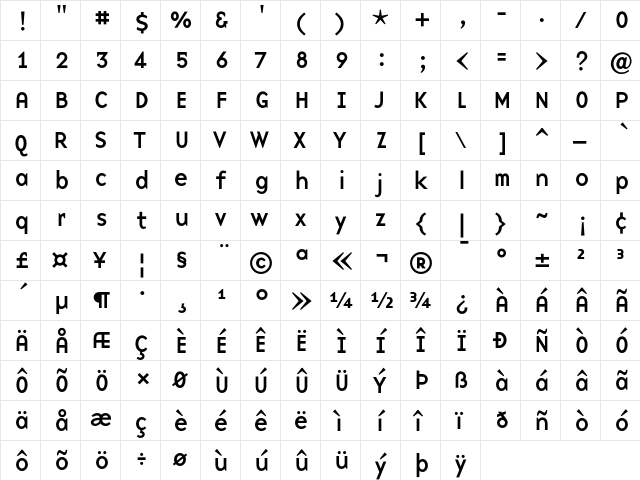
BaseNine Regular
Design Context for BaseNine Typeface
BaseNine is a composed and adaptable typeface that performs quietly and consistently across a wide range of design contexts.